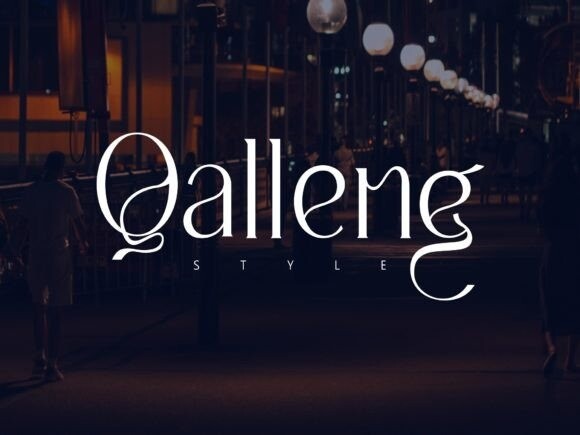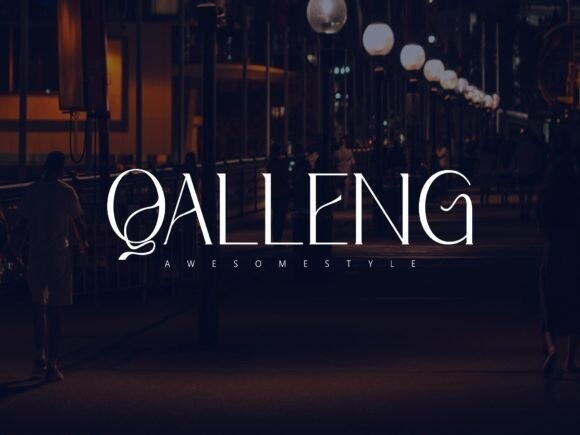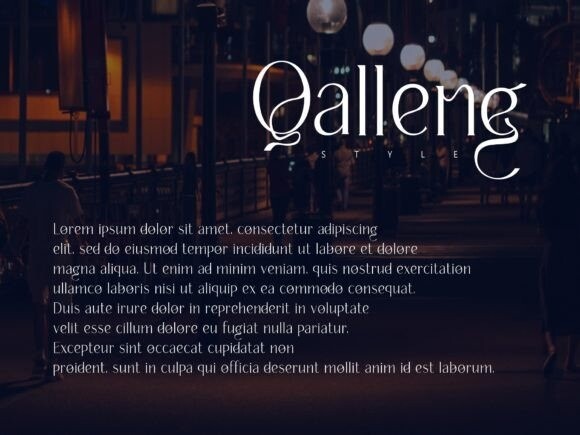
Qalleng Font
Qalleng is a simple serif font, perfect for anyone who needs a typeface for logo designs, magazines, social media, brochures, and many more.